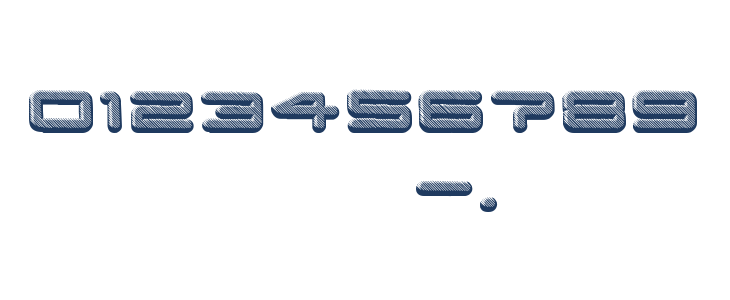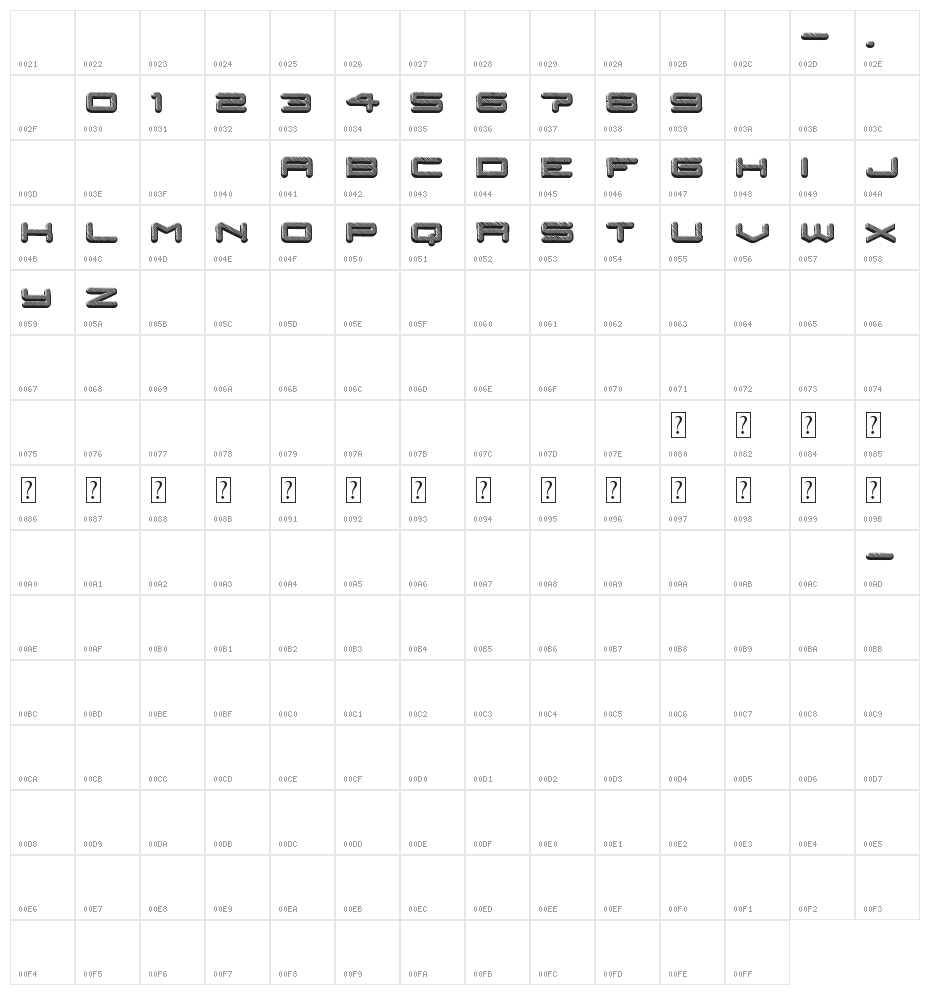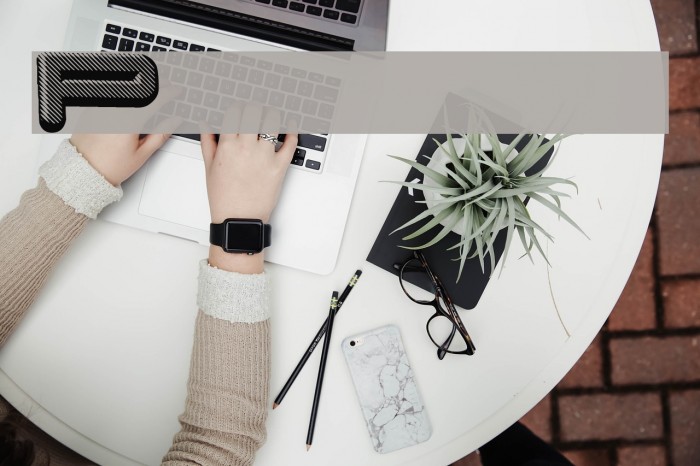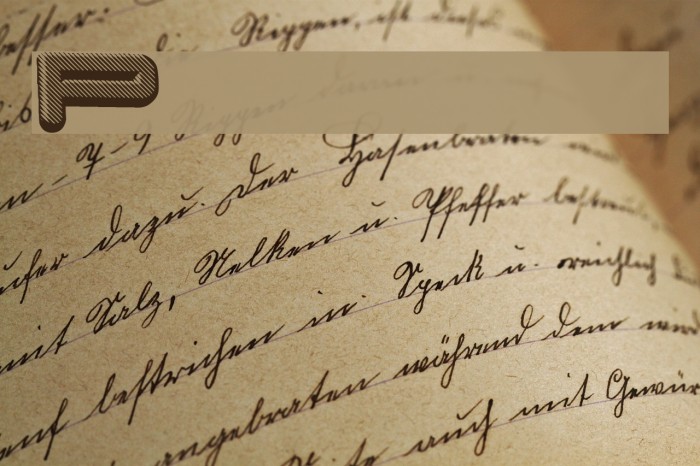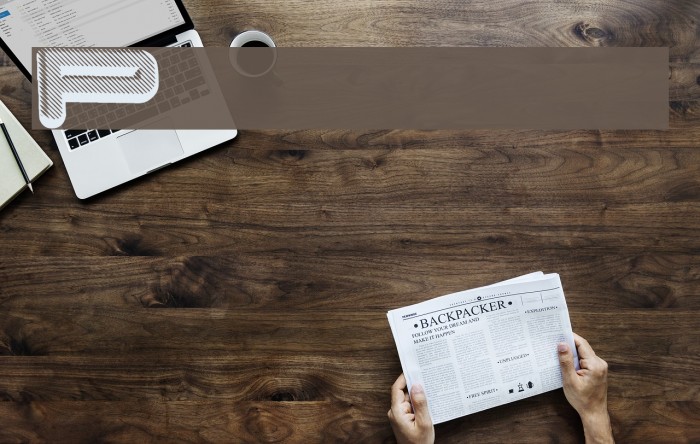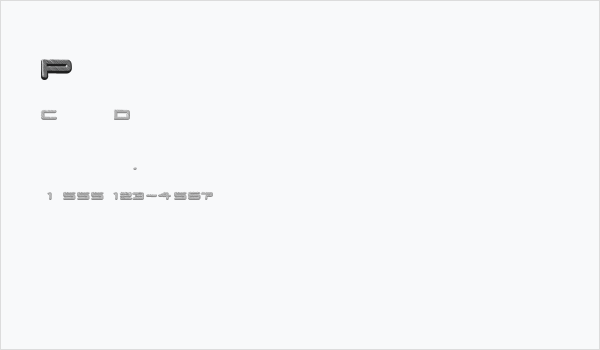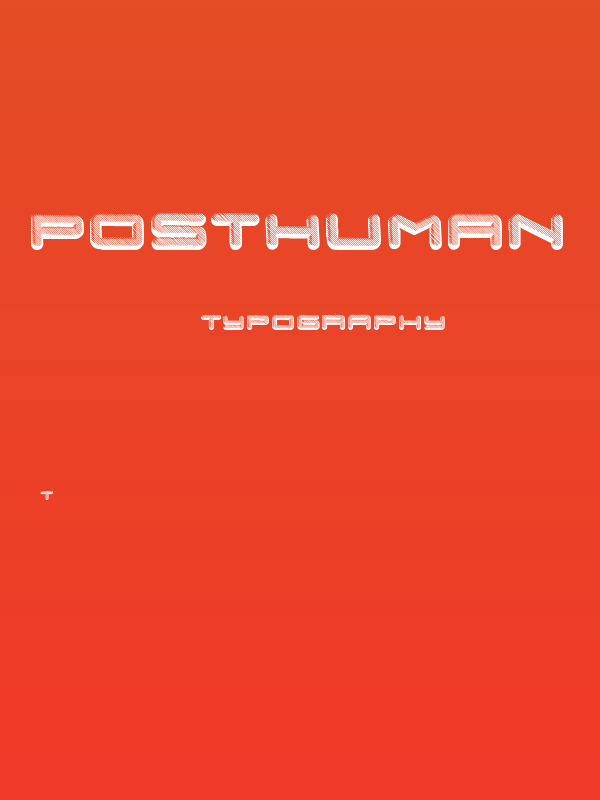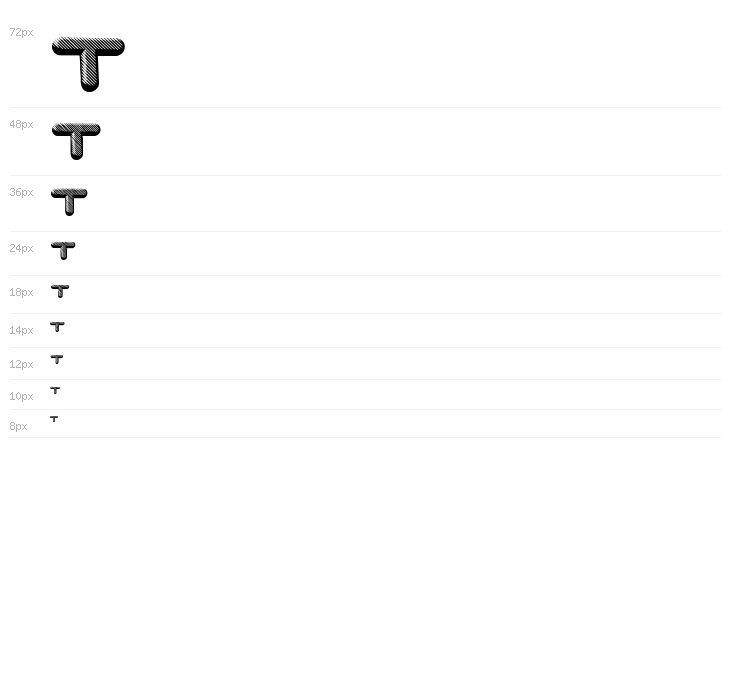
Posthuman Font
Posthuman Description
This font features a futuristic and mechanical design, characterized by its bold, rounded letterforms with a textured, metallic appearance. The characters are uniformly thick, giving a sense of solidity and strength. The design incorporates a subtle diagonal line pattern across each character, enhancing its industrial and high-tech aesthetic. The font maintains a consistent width across all characters, providing a balanced and cohesive look. Its unique style makes it stand out, suitable for projects that require a modern and edgy feel.
| Overall Style | Futuristic, Industrial |
| Proposed Projects | Ideal for sci-fi themed projects, technology branding, video game titles, and futuristic posters. |